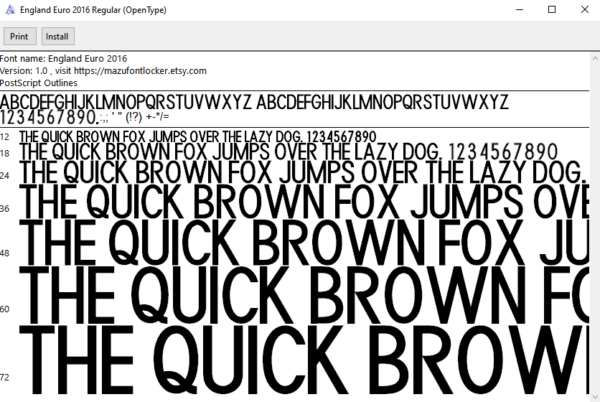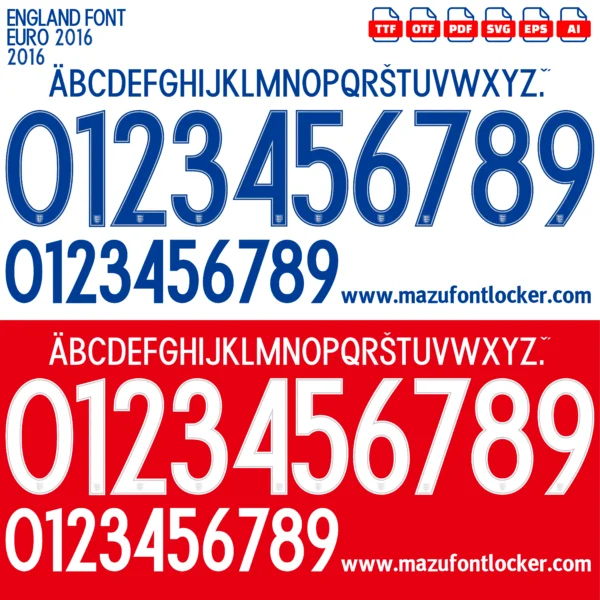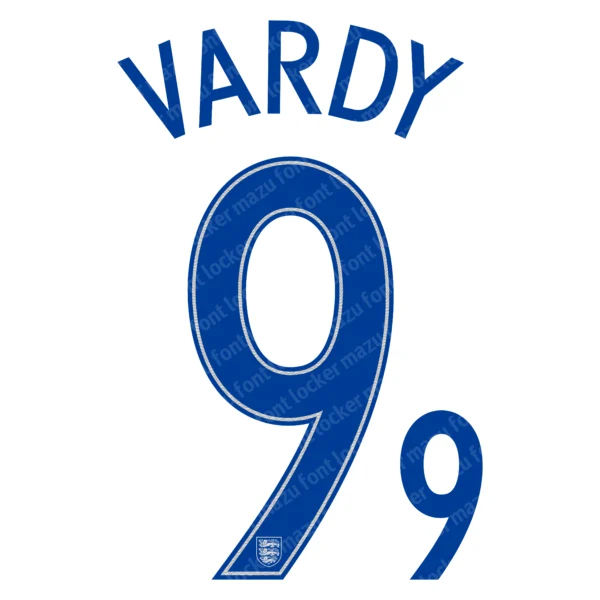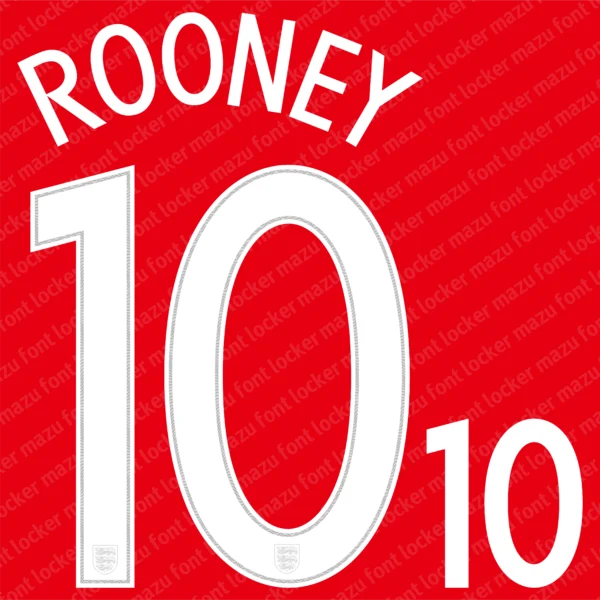
England Euro 2016 Font Vector – Legendary Three Lions Masterpiece
This premium font captures the commanding, iconic, majestic, and battle-ready lettering that embodies the unstoppable England spirit — delivering raw English fire, explosive winning energy, relentless never-say-die mentality, tactical supremacy, and legendary revolutionary warrior grit.
England Euro 2016 Font Vector – Authentic Three Lions Typeface
The England Euro 2016 Font Vector is a premium typeface that accurately recreates the official match lettering worn by the England national team during UEFA Euro 2016. This high-quality vector font kit captures the bold, clean, and modern typography that represents the Three Lions in France.
This font stands out because of its sharp vector precision and strong national identity. Every letter and number is crafted to match the exact style used on the players’ shirts during Euro 2016. Whether creating realistic kit templates or nostalgic football content, the England Euro 2016 Font Vector gives your designs that authentic Three Lions look.
The letterforms in the England Euro 2016 Font Vector are tall, bold, and highly readable. The strokes feature strong, clean weight with excellent edge definition that looks powerful on jerseys while maintaining classic elegance and clarity.
The numerals use bold curves and firm edges, giving a confident premium appearance. This vector design ensures perfect scalability and legibility in print and digital formats.
• Full uppercase A–Z and numbers 0–9 in authentic England Euro 2016 style
• Special England Three Lions crest glyph for accurate shirt number detailing
England at Euro 2016
The England Euro 2016 Font Vector is an independently designed typeface package. It is carefully crafted to replicate the official shirt lettering style of the Euro 2016 tournament. This font kit is perfect for creative projects, fan edits, nostalgic jersey designs, and custom football graphics.